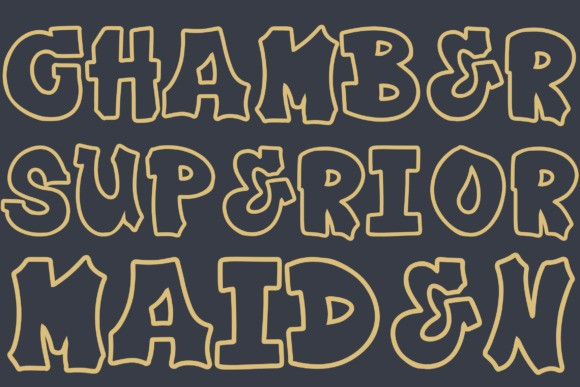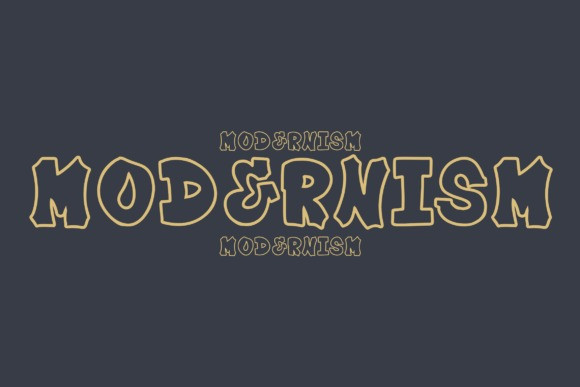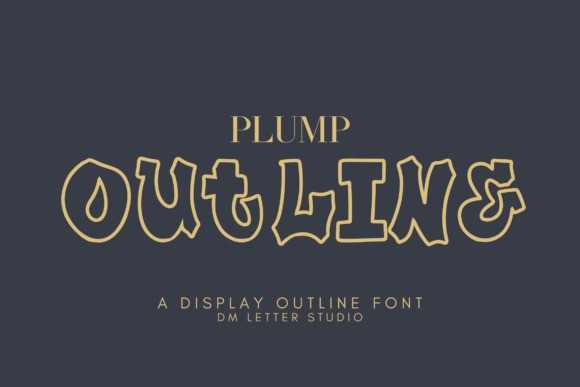
Plump Outline Font
Plump Outline Font brings playful structure to headlines, stickers, shirts, and standout social posts. The letters are bold yet airy, with a clean stroke that frames your words like candy-colored tubing. Because counters stay wide and spacing is even, this outline font reads clearly at thumbnail size and still looks striking on large prints.
Why you will love this outline font
First, it pops on photos and patterned backgrounds. Next, it cuts cleanly for Cricut and Silhouette. Then it layers beautifully with a solid shadow or offset fill, so you can build quick 2-color effects without complex setup. As a result, you can design fast and keep a consistent look across product lines.